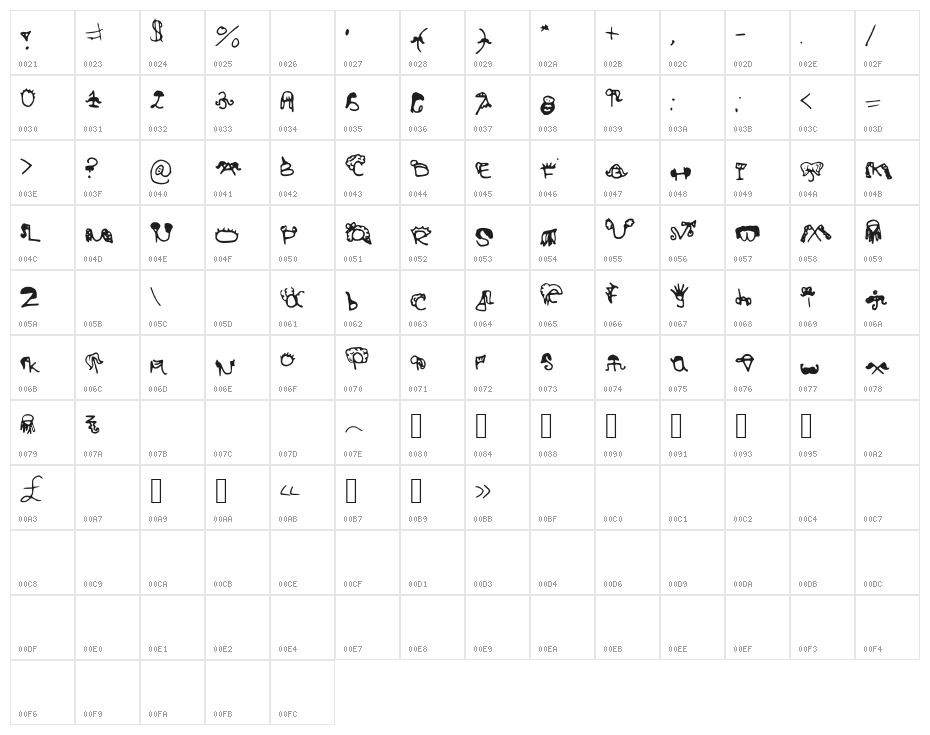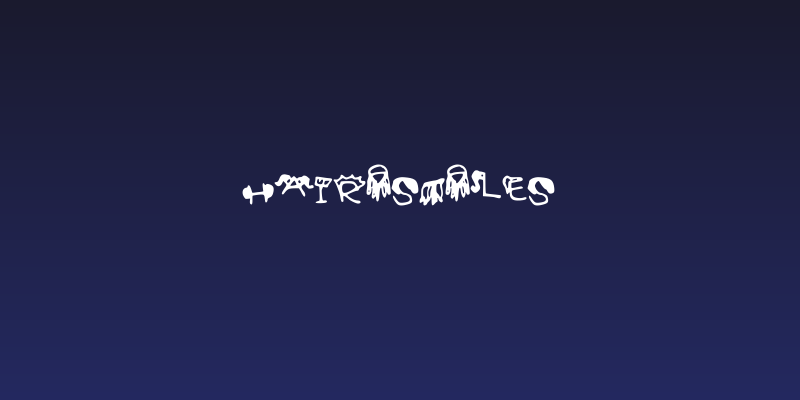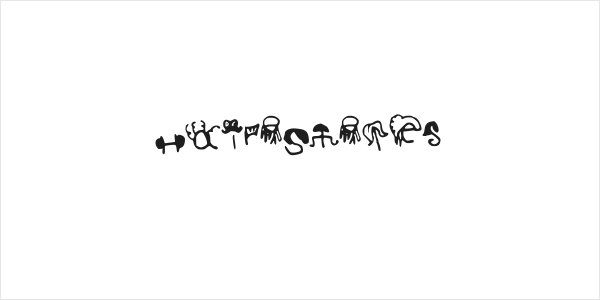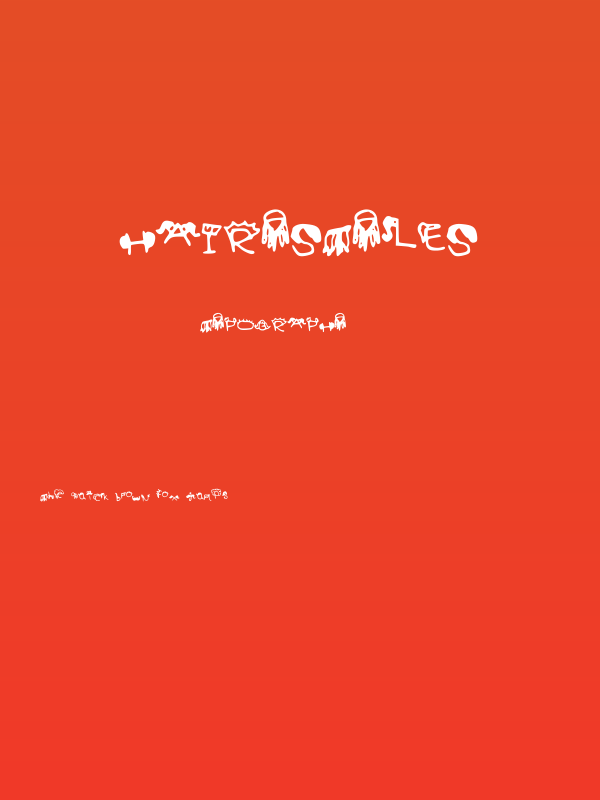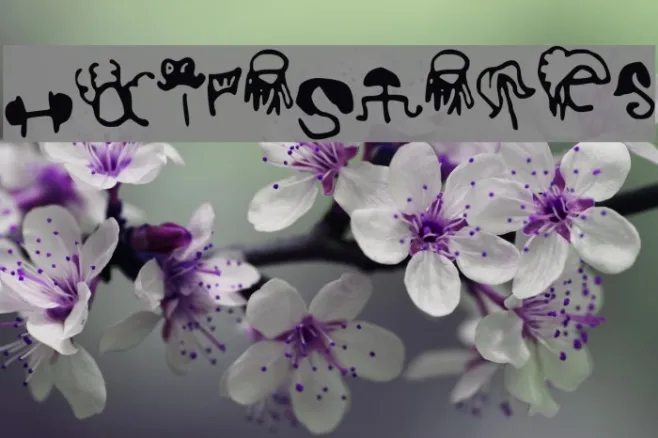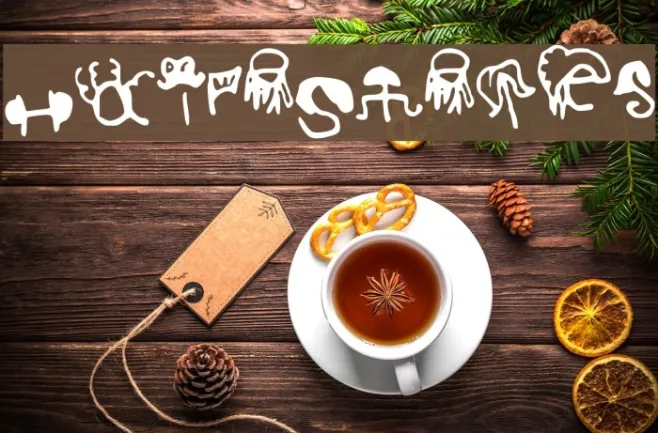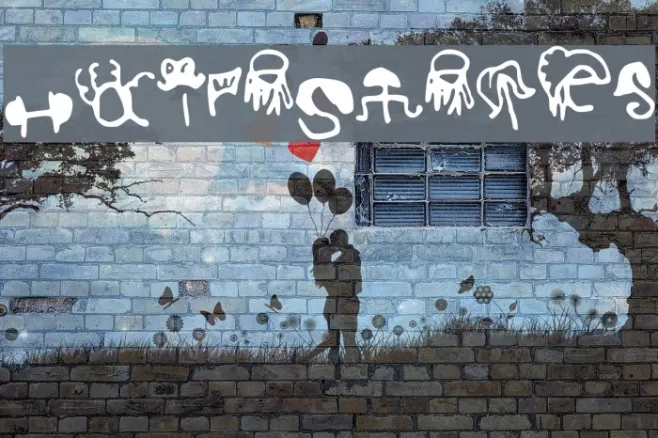
HairyStyles Font
HairyStyles Description
This font features a whimsical and playful design, with each character adorned with unique, hair-like embellishments. The letters and numbers are crafted with a sense of humor and creativity, making them appear almost like creatures or abstract art forms. The strokes are bold and varied, with a high contrast between thick and thin lines, adding to the dynamic and lively appearance. The special characters continue this theme, incorporating the same playful elements. This font is highly decorative and stands out with its imaginative style.
| Proposed Projects | Ideal for creative projects such as children's books, playful branding, posters, and artistic designs. |